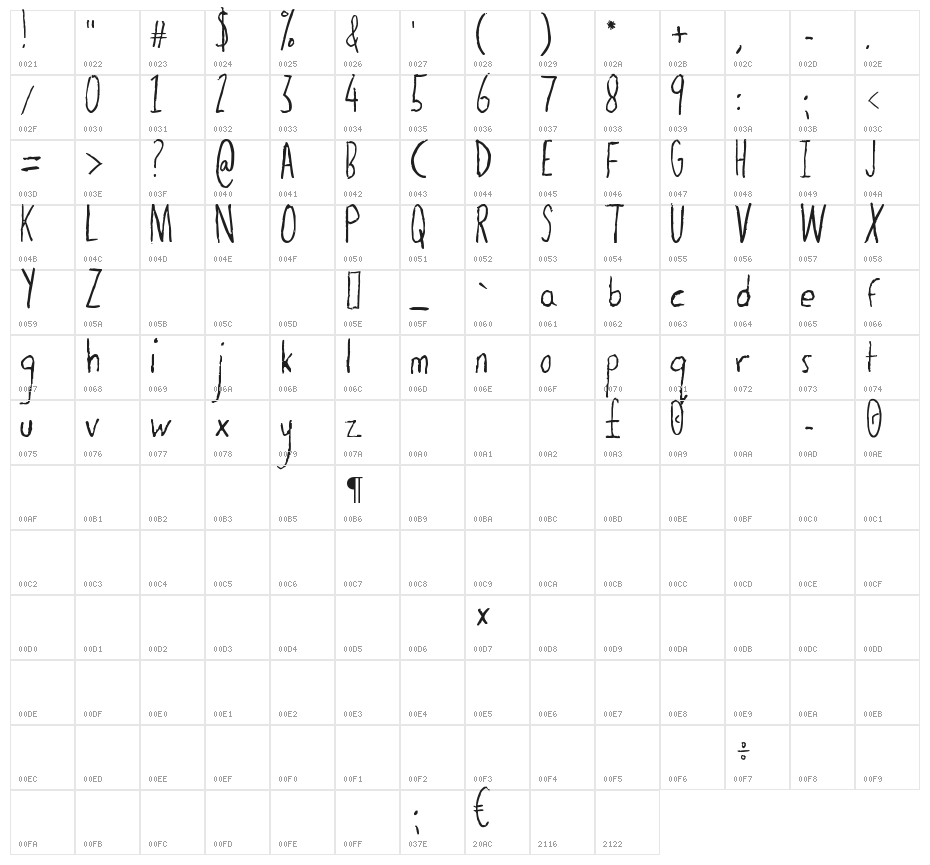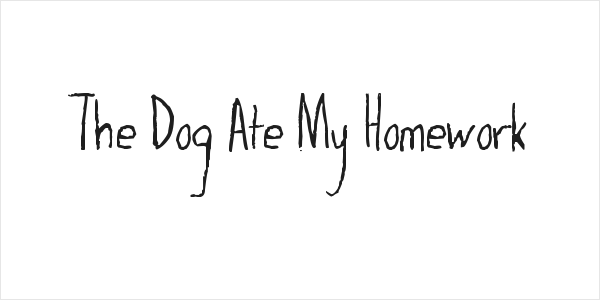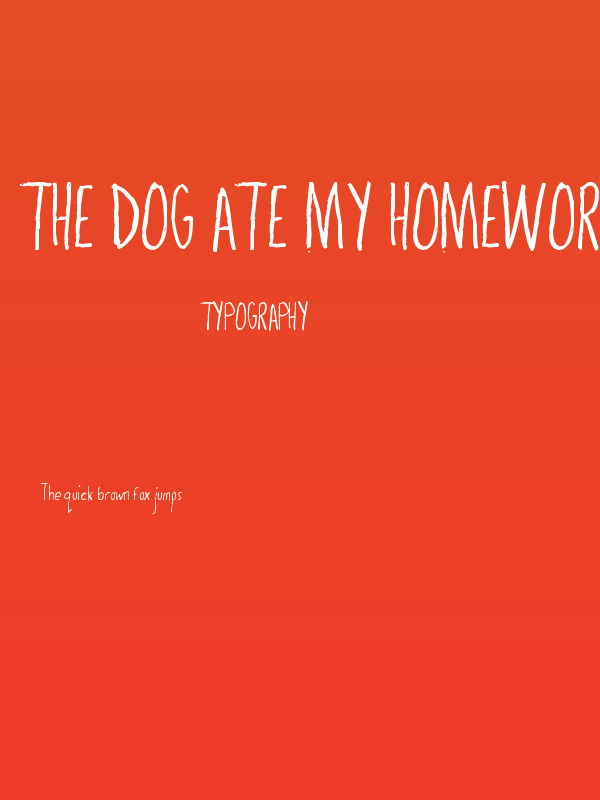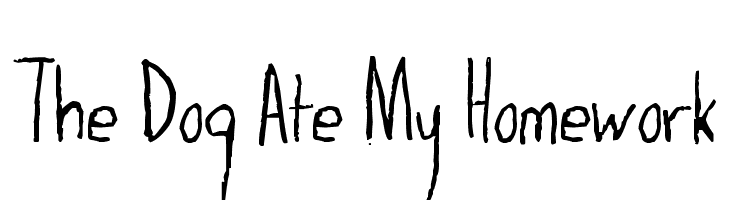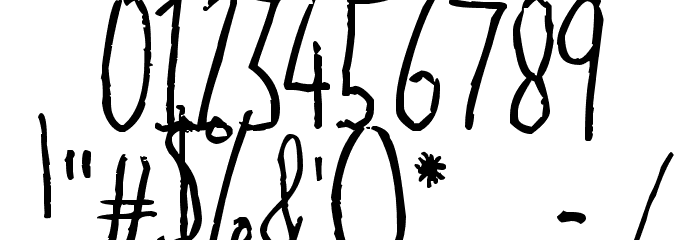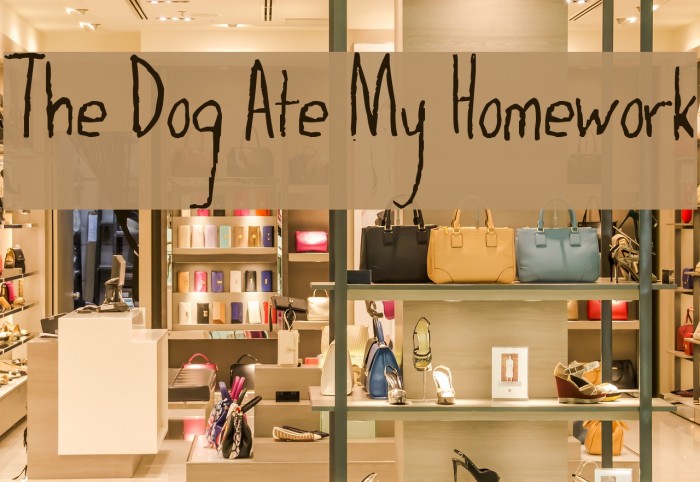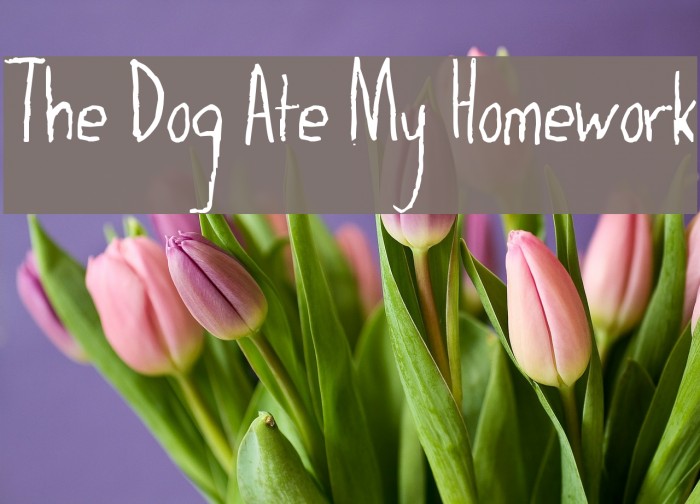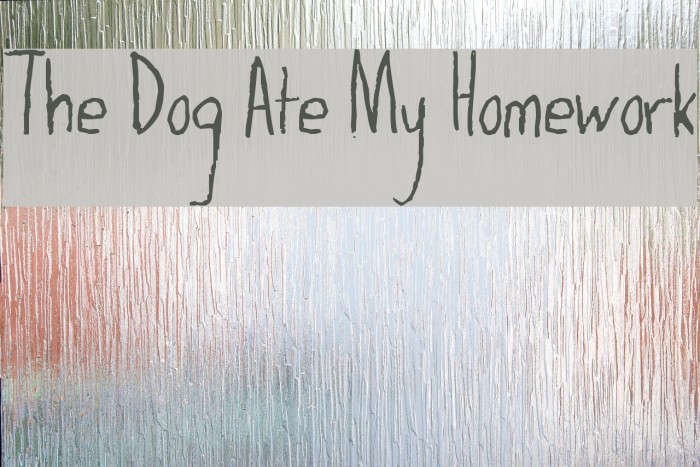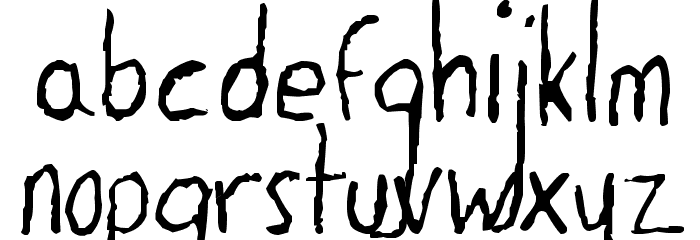
The Dog Ate My Homework Font
The Dog Ate My Homework Description
This font exudes a playful and informal vibe, reminiscent of a child's handwriting. The characters are unevenly shaped, with a slightly wobbly appearance that adds to its charm. The strokes are irregular, giving it a hand-drawn feel, and the overall style is casual and whimsical. The uppercase and lowercase letters maintain a consistent style, with quirky, elongated forms that suggest a sense of spontaneity. The numbers and special characters follow the same playful design, making this font ideal for projects that require a fun and lighthearted touch.
| Overall Style | Whimsical |
| Use Case | Headlines, Logos, Informal Text |
| Proposed Projects | Ideal for children's books, playful posters, casual invitations, and educational materials. |